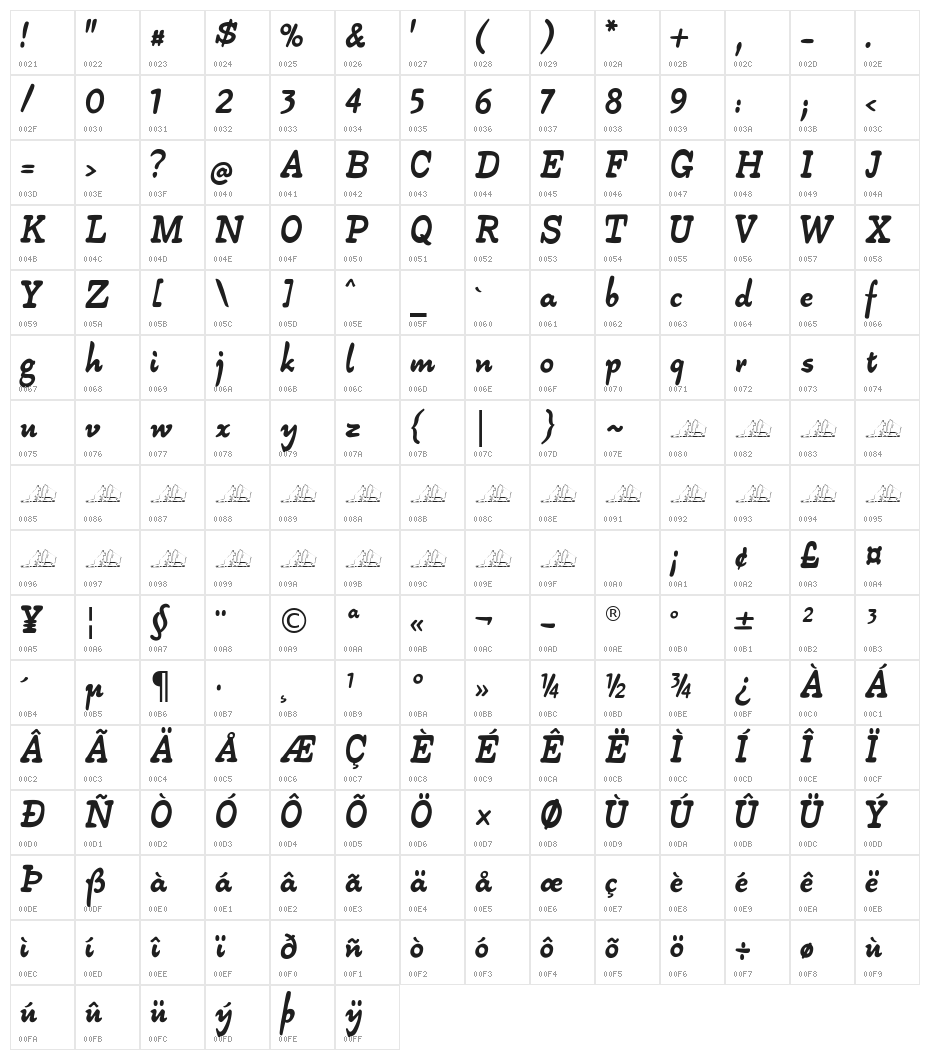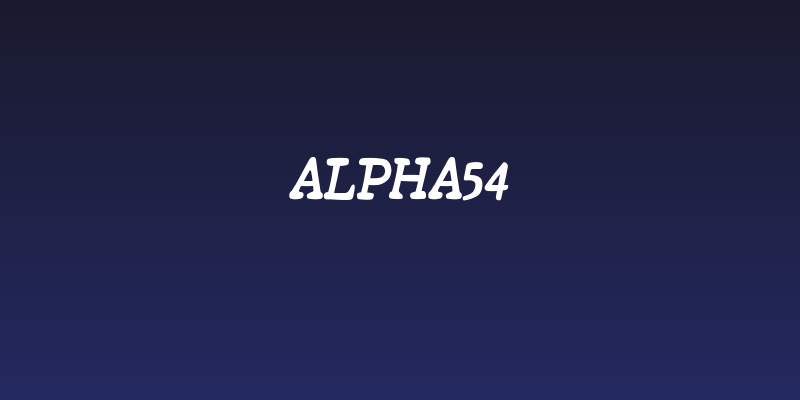
Alpha54 Font
Alpha54 Description
This font features a bold and dynamic script style with a playful and energetic feel. The uppercase letters are slightly slanted, giving a sense of movement and fluidity. The lowercase letters maintain a consistent flow, enhancing readability while retaining a casual elegance. Numbers are bold and clear, making them suitable for various applications. Special characters are creatively designed, adding a unique touch to the overall aesthetic. The font's thick strokes and rounded edges contribute to its friendly and approachable appearance, making it ideal for projects that require a personal and informal touch.
| Overall Style | Playful, Energetic, Casual |
| Proposed Projects | Ideal for branding, invitations, greeting cards, and playful advertising campaigns. |